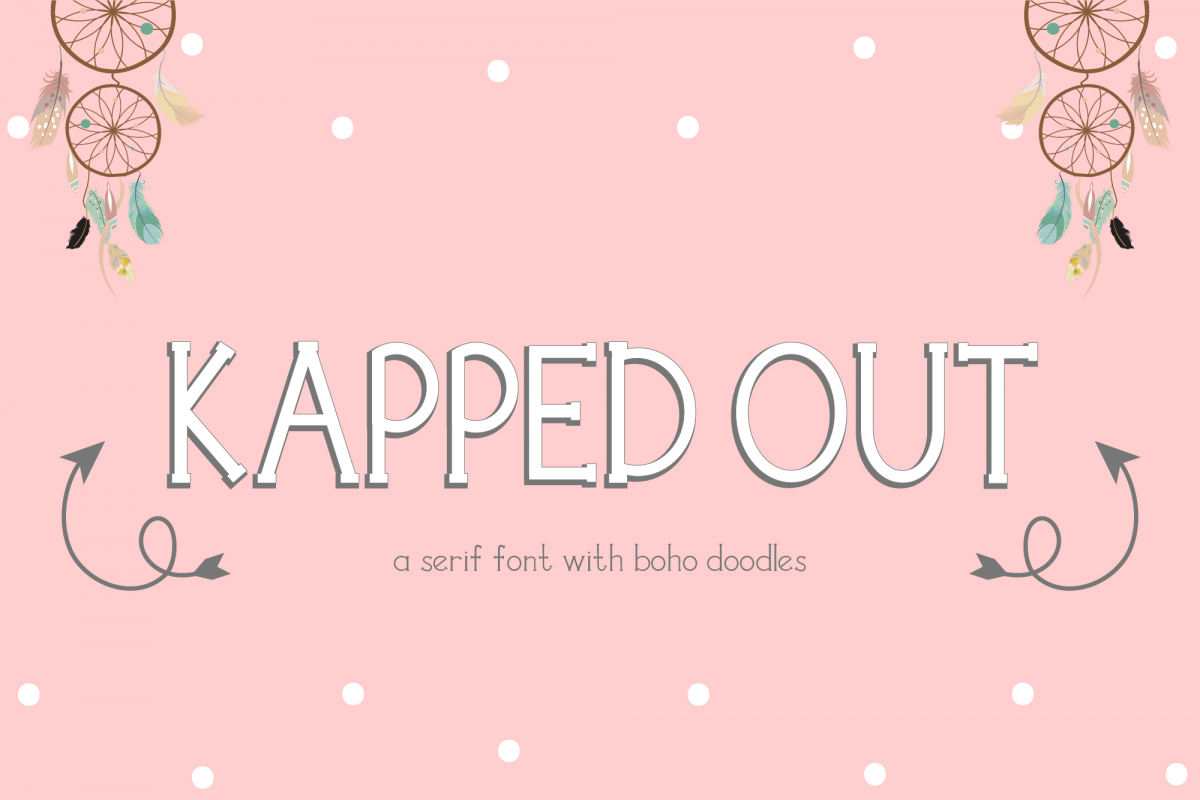
Kapped Out - A Serif Font with Caps and Doodles
Kapped Out - A Serif Capped Font with Doodles! 3 Fonts Included!
Regular • Bold • Doodles
Great for logos, labeling, stationary, invitations, web graphics & more.